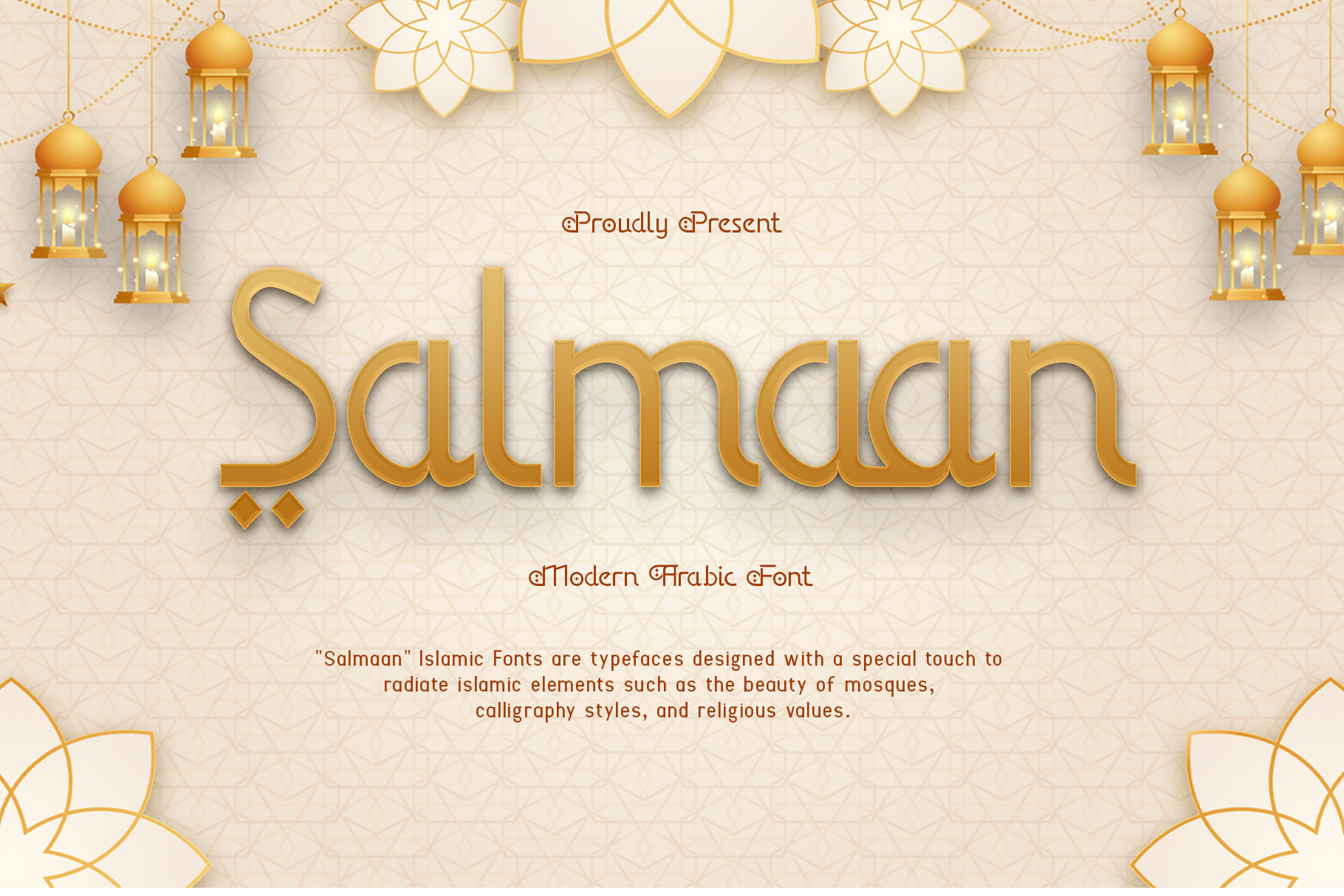
Salmaan - A Modern Arabic Font
Salmaan is a sophisticated and versatile Arabic font that blends traditional letterforms with a modern aesthetic. This typeface offers a perfect balance of elegance and readability, making it ideal for a wide range of projects such as branding, invitations, book covers, packaging, and advertisements. Its refined curves and sleek structure make it suitable for both formal and contemporary applications.
Designed with meticulous attention to detail, Salmaan supports Arabic characters with smooth flow and harmony, giving your text an authentic and polished appearance. Whether you're working on bilingual designs or projects focused on Arabic content, this font ensures your message stands out with a professional and modern vibe.
Add a touch of culture and style to your work with Salmaan. Perfect for digital and print media, this font helps you create visually stunning and meaningful designs while embracing the beauty of Arabic typography.